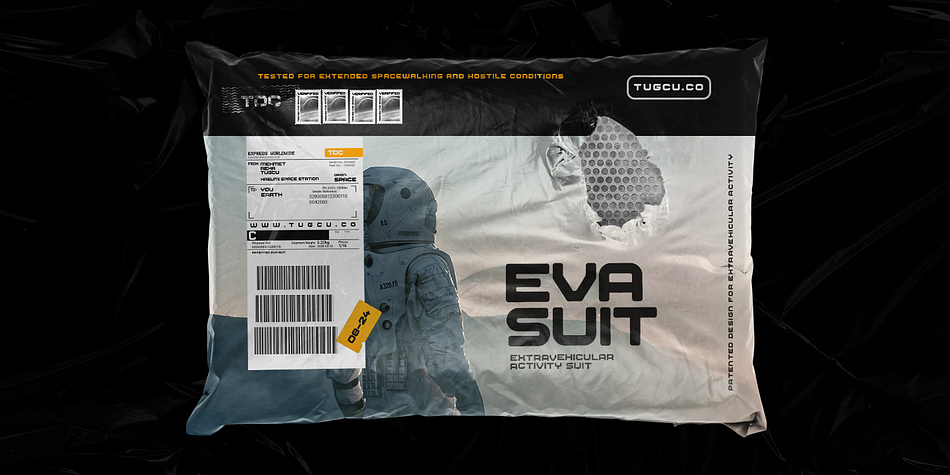
Kasumi
Kasumi is a display sans font family. This typeface has six styles and was published by Tugcu Design Co.
Kasumi is a retrofuturistic font family with a sleek old-school look. It includes 6 unique styles and has uppercase multilingual letters, numbers and punctuation.